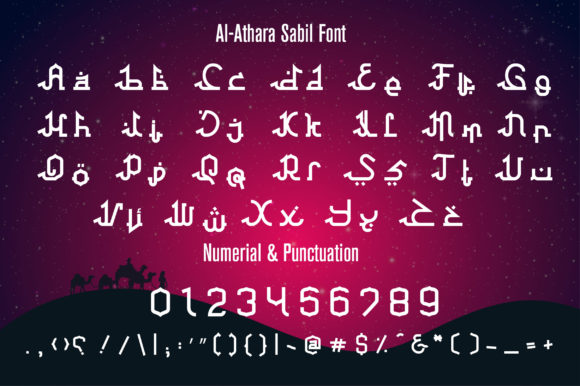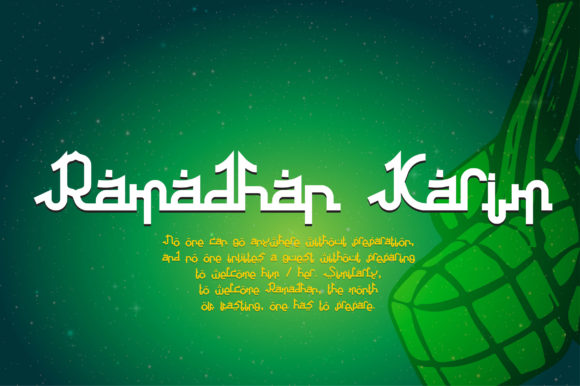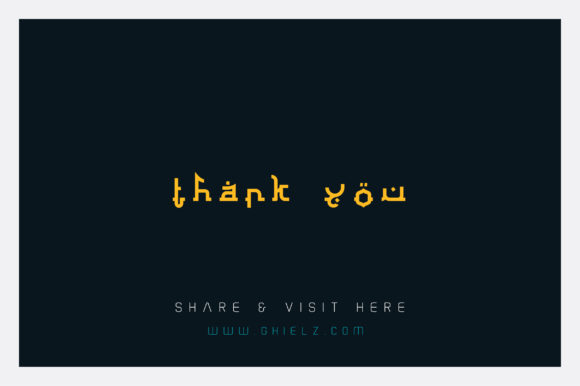
Athar & Sabil Font: Unveiling the Elegance of Arabic Script
In the realm of typography, few fonts manage to capture the essence of a language’s script while appealing to a broad audience. Athar & Sabil, a display font inspired by Arabic script, is one such marvel. Its unique charm lies in its ability to blend traditional Arabic calligraphy with modern design sensibilities, making it a fascinating choice for designers and crafters alike.
The Inspiration Behind Athar & Sabil
Athar & Sabil draws its inspiration from the rich heritage of Arabic calligraphy, an art form that has been perfected over centuries. Arabic script is known for its fluidity, elegance, and the way it seems to dance on the page. The font maintains these characteristics while adapting them to a modern context, making it versatile for various design applications.
Athar & Sabil is distinguished by several key design characteristics:
- Unique Letterforms: Each letter in the font is meticulously crafted to reflect the beauty of Arabic script. The font features intricate ligatures and diacritical marks that are essential to the Arabic language.
- Elegant and Fluid: The font retains the fluid and elegant feel of traditional Arabic calligraphy, making it perfect for display purposes.
- Versatility: Despite its roots in Arabic script, Athar & Sabil is designed to be versatile. It can be used in a variety of contexts, from digital media to print, and from branding to artistic projects.
Applications for Designers and Crafters
Athar & Sabil offers a plethora of possibilities for designers and crafters looking to add a touch of elegance and uniqueness to their projects. Here are a few ideas:
- Branding and Logo Design: The distinctive charm of Athar & Sabil makes it an excellent choice for brands looking to stand out. It’s particularly suitable for businesses in the cultural, artistic, and culinary sectors.
- Typography Art: For crafters and artists, Athar & Sabil provides a beautiful script to work with. It can be used in hand-lettering projects, typographic art, and mixed media collages.
- Digital Content Creation: In the digital realm, Athar & Sabil can add a sophisticated touch to blog headers, social media graphics, and website design.
- Packaging Design: The font’s unique aesthetic can also be leveraged in packaging design, especially for products that aim to convey a sense of luxury, tradition, or cultural heritage.
Why Choose Athar & Sabil?
Choosing Athar & Sabil for your design projects comes with several advantages:
- Cultural Significance: By using a font inspired by Arabic script, designers can add depth and cultural significance to their work.
- Aesthetic Appeal: The font’s elegant and unique design elements are sure to capture attention and add a professional touch to any project.
- Versatility: Its adaptability to different design contexts makes Athar & Sabil a valuable addition to any designer’s font library.
Athar & Sabil is more than just a display font; it’s a bridge between tradition and modernity, offering designers and crafters a unique tool to express their creativity. Its inspiration from Arabic script, combined with its modern design sensibilities, makes it a compelling choice for a wide range of projects. Whether you’re looking to add an element of elegance to your branding, create captivating typographic art, or simply explore new design possibilities, Athar & Sabil is sure to inspire.
Embrace the unique charm of Athar & Sabil in your next project and discover how this beautifully crafted font can elevate your design to new heights.